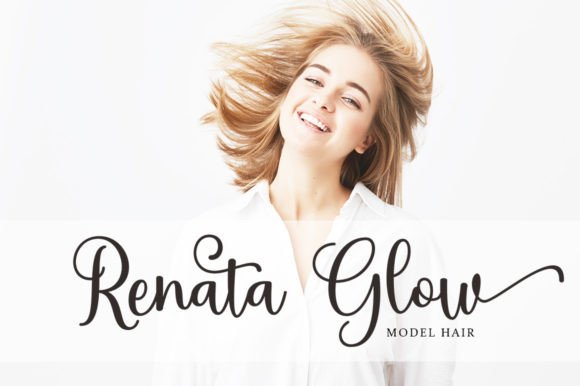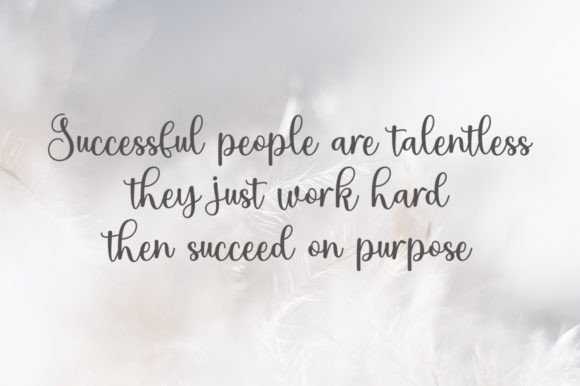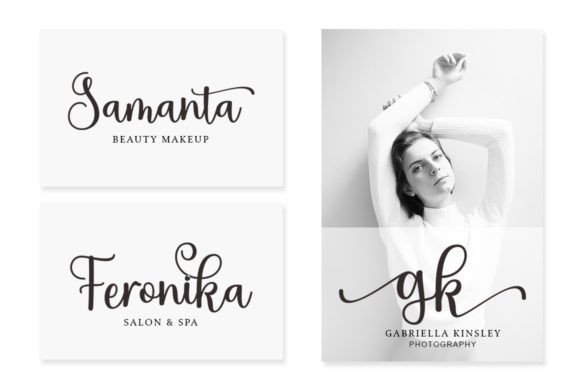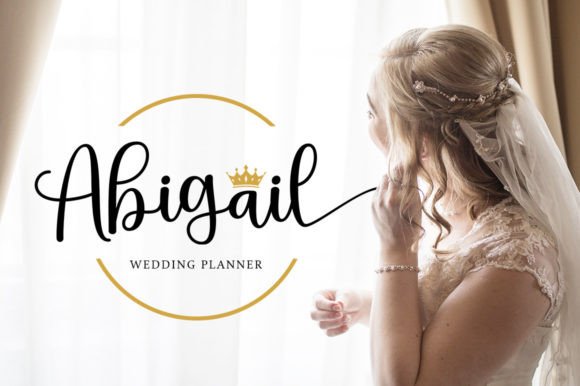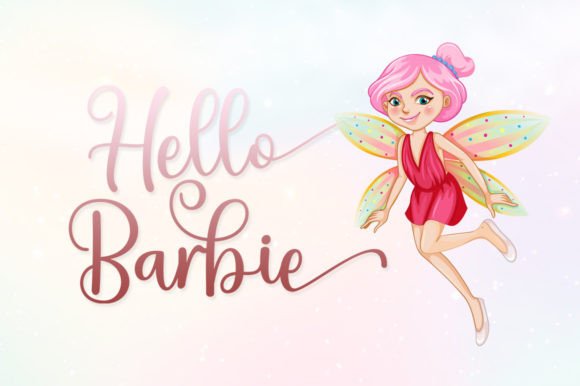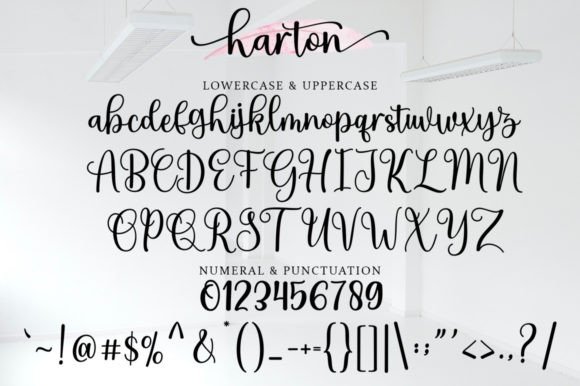
Introducing Harton Font: Elevate Your Designs with Elegance and Sophistication
In the world of typography, a well-chosen font can make all the difference in transforming a design from ordinary to extraordinary. For designers and crafters seeking to add a touch of elegance and sophistication to their projects, Harton Font is an exceptional choice. This stylish and very elegant handwritten font is perfect for a variety of applications, including wedding invitations, thank you cards, quotes, greeting cards, logos, business cards, and more.
The Characteristics of Harton Font
Harton Font boasts a beautiful, cursive script that exudes refinement and poise. Its elegant strokes and flowing connections make it ideal for designs that require a personal and sophisticated touch. The font’s versatility allows it to be used in a wide range of contexts, from formal events to everyday branding.
Key Features of Harton Font
- PUA Encoding: Harton Font is PUA (Private Use Area) encoded, which means that accessing all glyphs and swashes is effortless. This feature allows designers to explore the font’s full potential and create unique, customized designs.
- Handwritten Touch: The font’s handwritten nature adds a personal and organic feel to any design, making it perfect for projects that require a touch of warmth and personality.
- Elegant and Refined: Harton Font’s elegant strokes and sophisticated style ensure that it will elevate any design, making it suitable for high-end branding, wedding stationery, and more.
Use Cases for Harton Font
Harton Font’s versatility makes it an excellent choice for a variety of design projects, including:
- Wedding Invitations: Add a touch of elegance and sophistication to your wedding stationery with Harton Font.
- Thank You Cards: Express your gratitude in style with beautifully designed thank you cards featuring Harton Font.
- Quotes and Typography: Use Harton Font to create stunning typographic quotes that showcase your favorite phrases or lyrics.
- Greeting Cards: Create personalized and elegant greeting cards for any occasion with Harton Font.
- Logos and Branding: Elevate your brand with a sophisticated logo featuring Harton Font.
- Business Cards: Stand out from the crowd with beautifully designed business cards that showcase your professionalism and style.
Tips for Using Harton Font
To get the most out of Harton Font, consider the following tips:
- Experiment with Swashes: Take advantage of Harton Font’s PUA encoding to access a range of swashes and glyphs, adding a unique touch to your designs.
- Pair with Other Fonts: Combine Harton Font with other fonts to create visually appealing contrast and add depth to your designs.
- Adjust Font Size and Style: Experiment with different font sizes and styles to create visual hierarchy and emphasize key elements in your design.
Harton Font is a stunning, elegant handwritten font that is sure to elevate your designs. With its PUA encoding, elegant strokes, and versatile nature, it’s perfect for a wide range of applications. Whether you’re a designer, crafter, or DIY enthusiast, Harton Font is an excellent choice for adding a touch of sophistication and elegance to your projects. So why wait? Discover the beauty of Harton Font and take your designs to the next level.